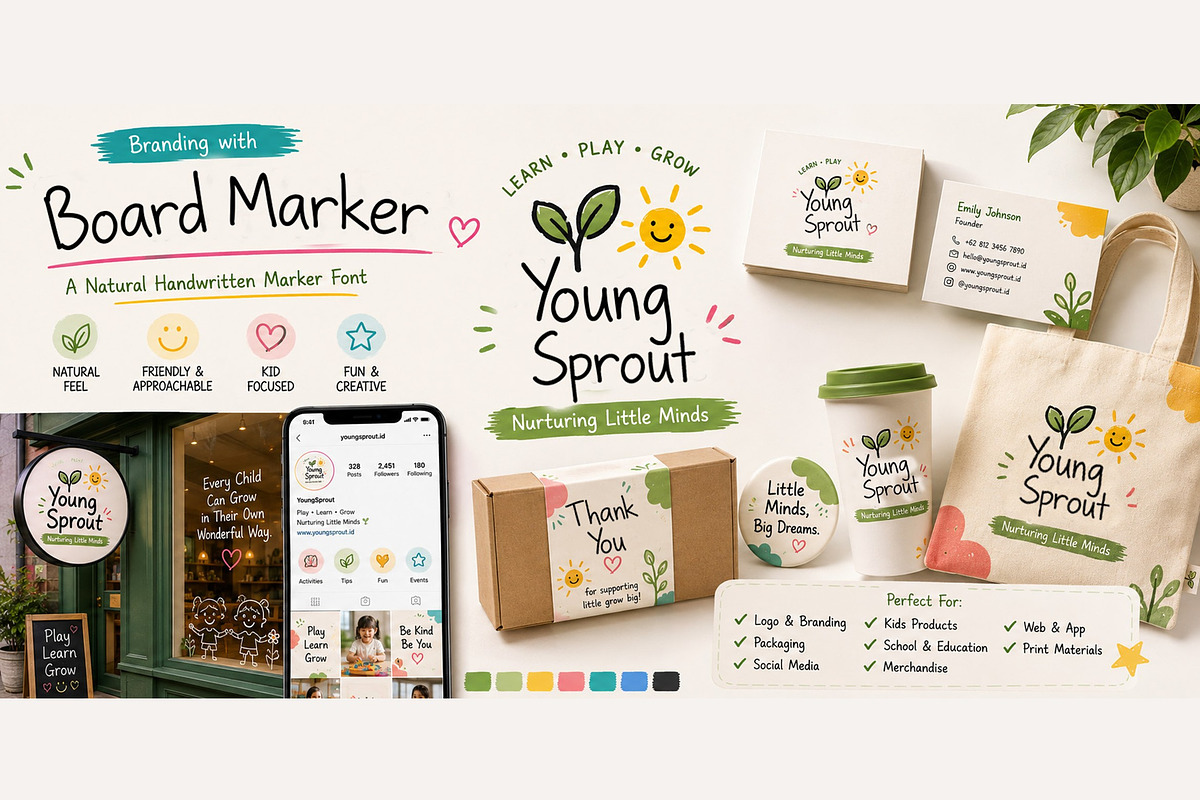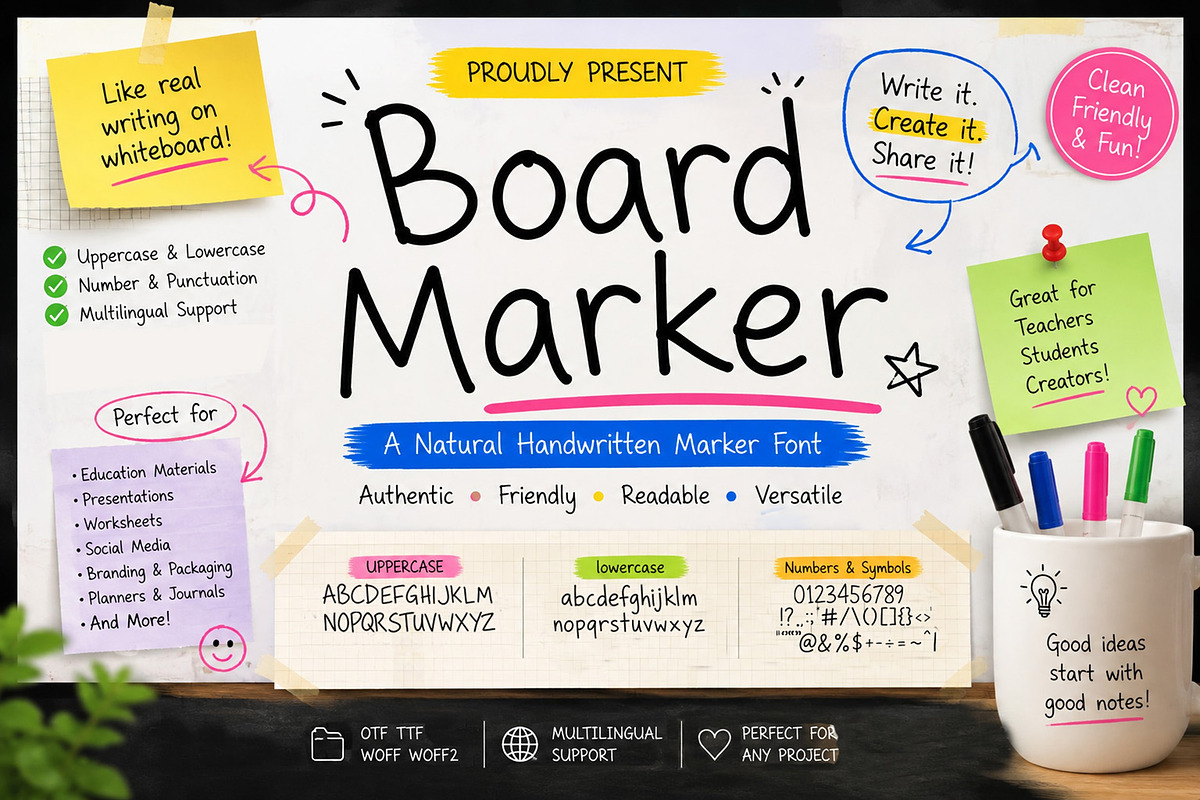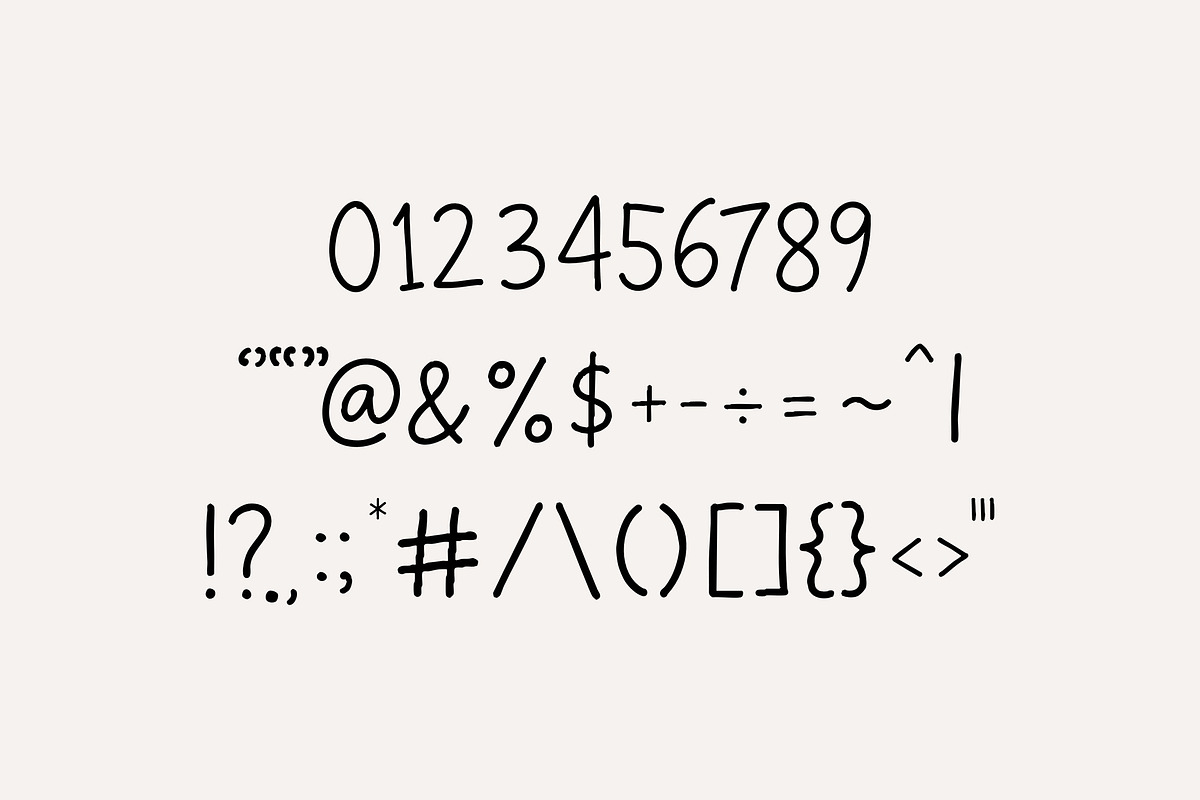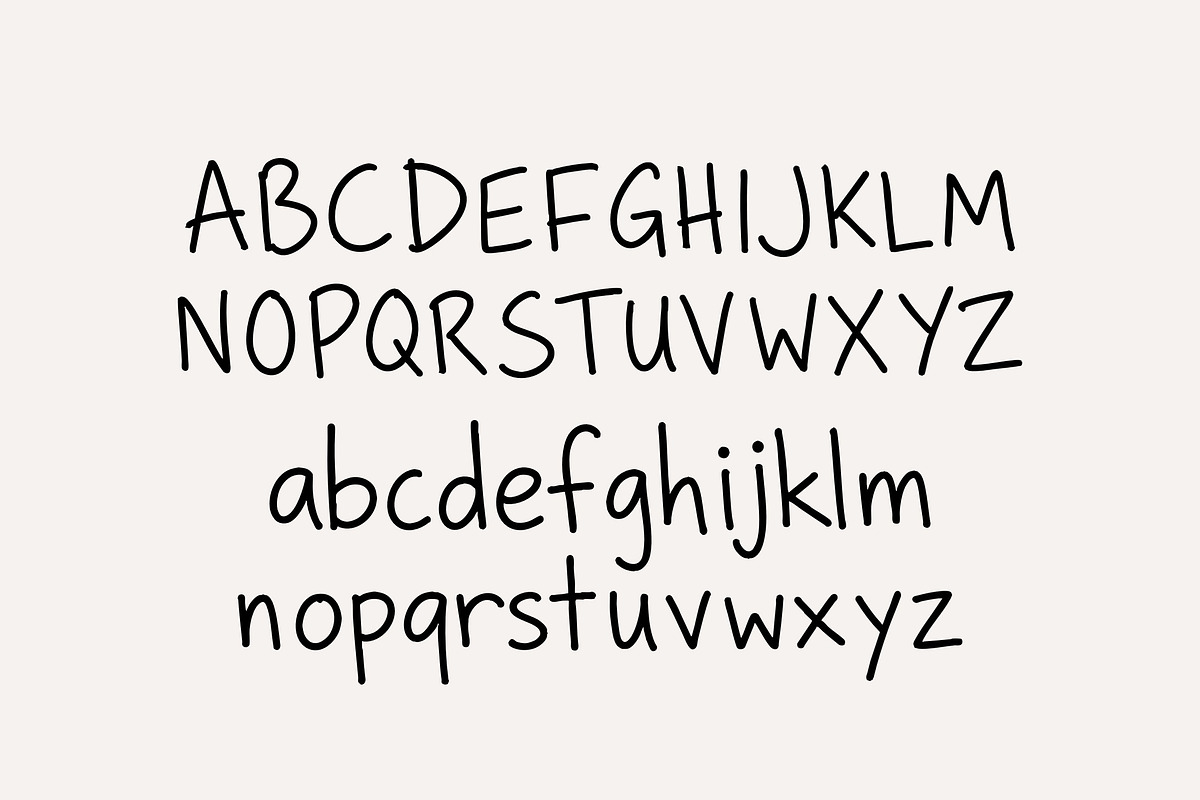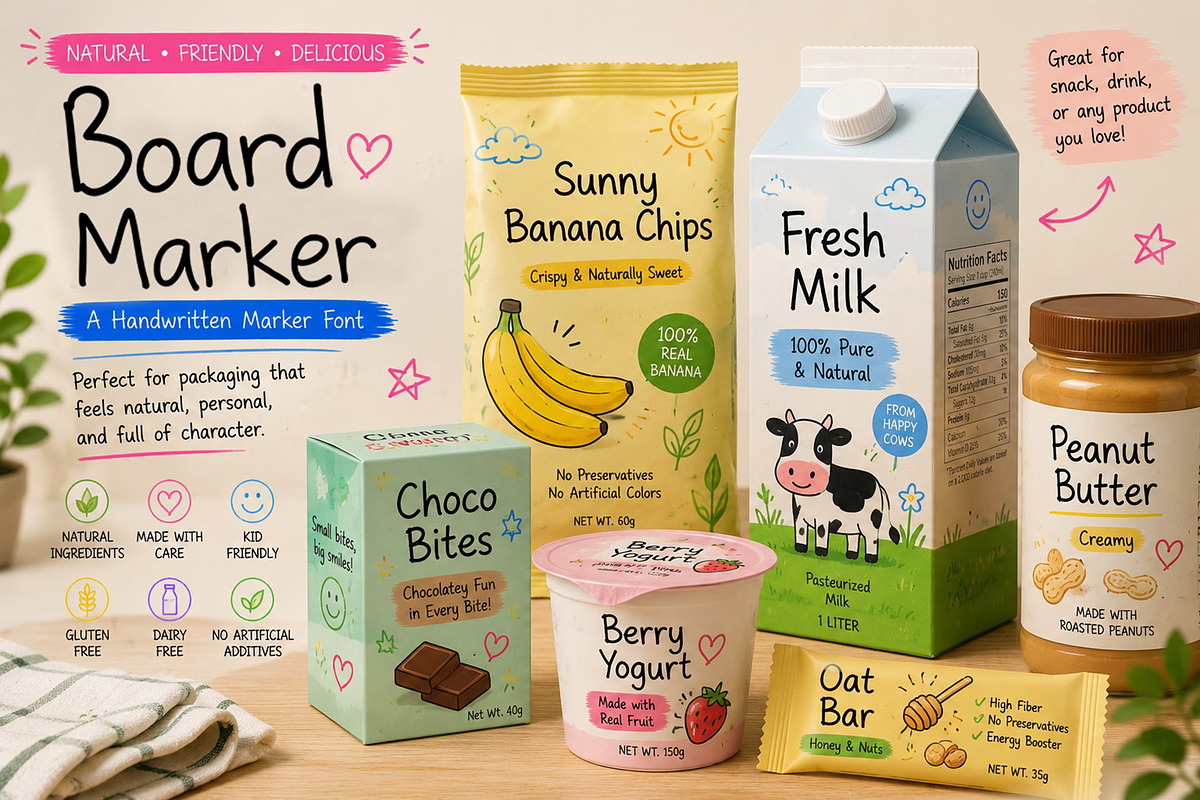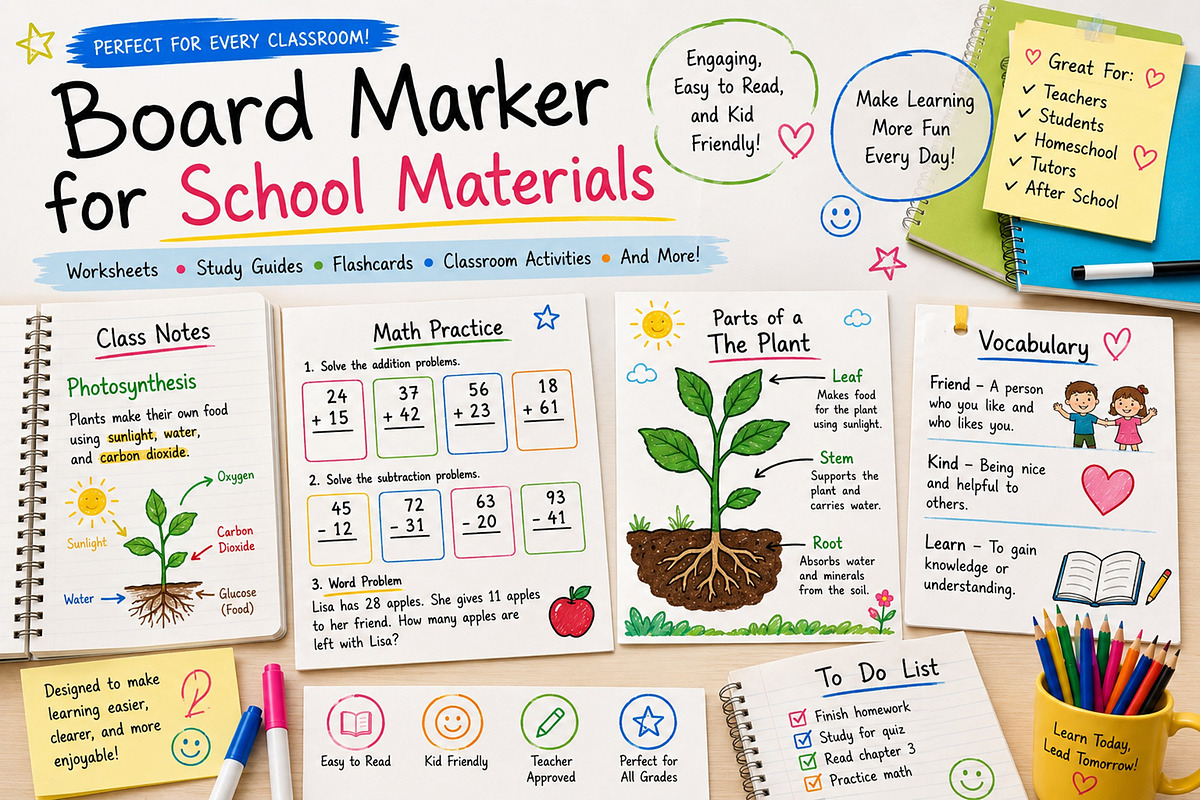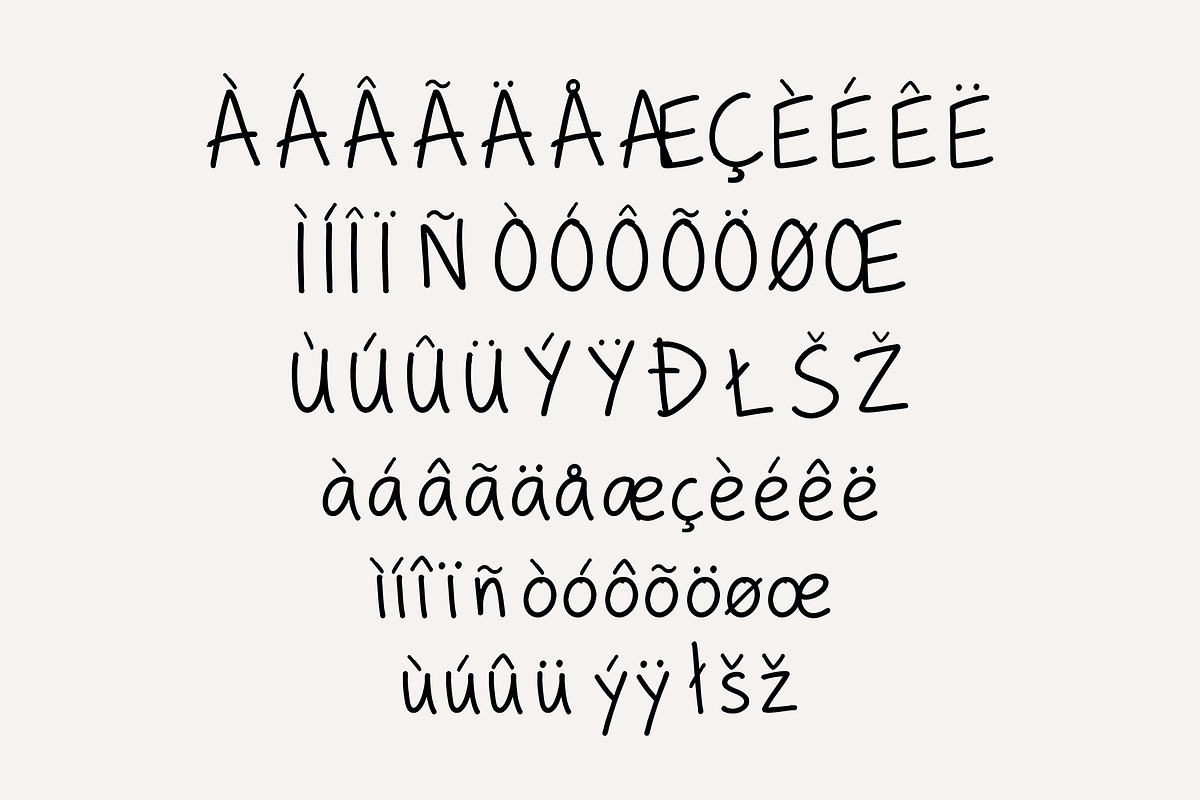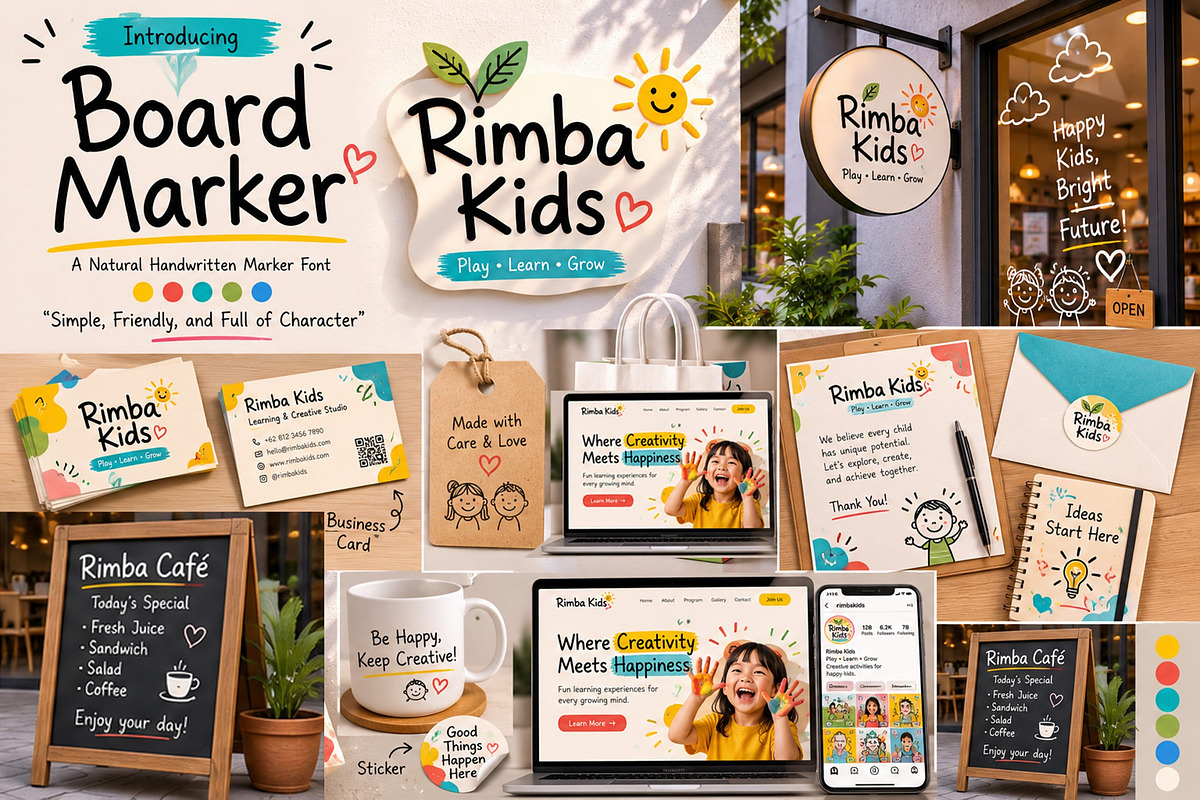
Board Marker
Board Marker is a natural handwritten marker font inspired by real classroom whiteboard writing. Designed with authentic stroke variations, smooth readability, and a friendly educational feel, this font is perfect for worksheets, school materials, presentations, social media, branding, planners, journals, YouTube thumbnails, classroom resources, and creative projects.